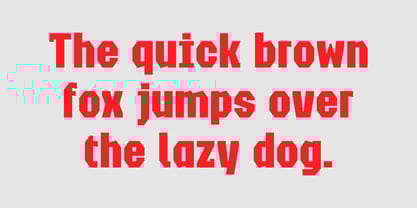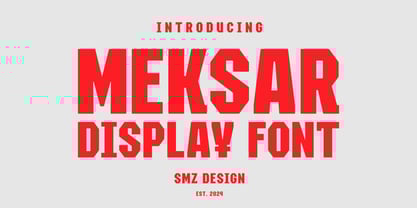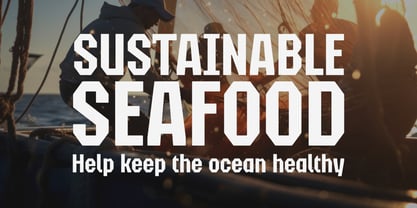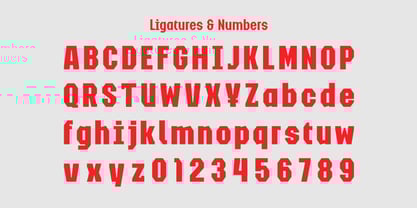
Meksar
by SMZ Design
The Meksar Font Family was designed by Szymon Mandziarz and published by SMZ Design. Meksar contains 2 styles and family package options.
Meksar is a machine-printed display font with distinct shapes. There are two weights: Regular and Bold. Contains 237 glyphs. The font attracts the attention of recipients with its academic character. The Meksar font is ideal for graphic designs with an intriguing style. The font will work well in poster design, branding, logo design and clothing branding.
An independent font foundry that was created out of passion for typography and creative needs. The founder and author is Szymon Mandziarz. The beginnings of letter design began many years ago with graffiti. The foundry focuses on the production of modern, unique typefaces with a clear form and details that attract attention. The font foundry aims at providing its customers with high quality fonts that stand out with their original style.